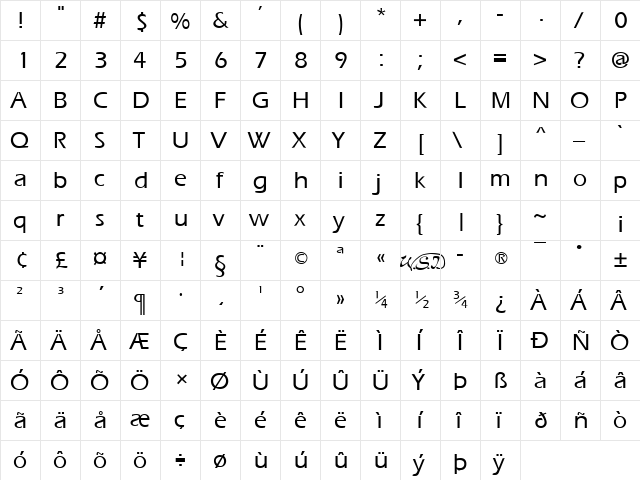
ErgoeMedium Regular
Design Context for ErgoeMedium Typeface
ErgoeMedium takes a measured approach to typography — its balanced proportions and neutral character make it a reliable workhorse for both digital and print work.